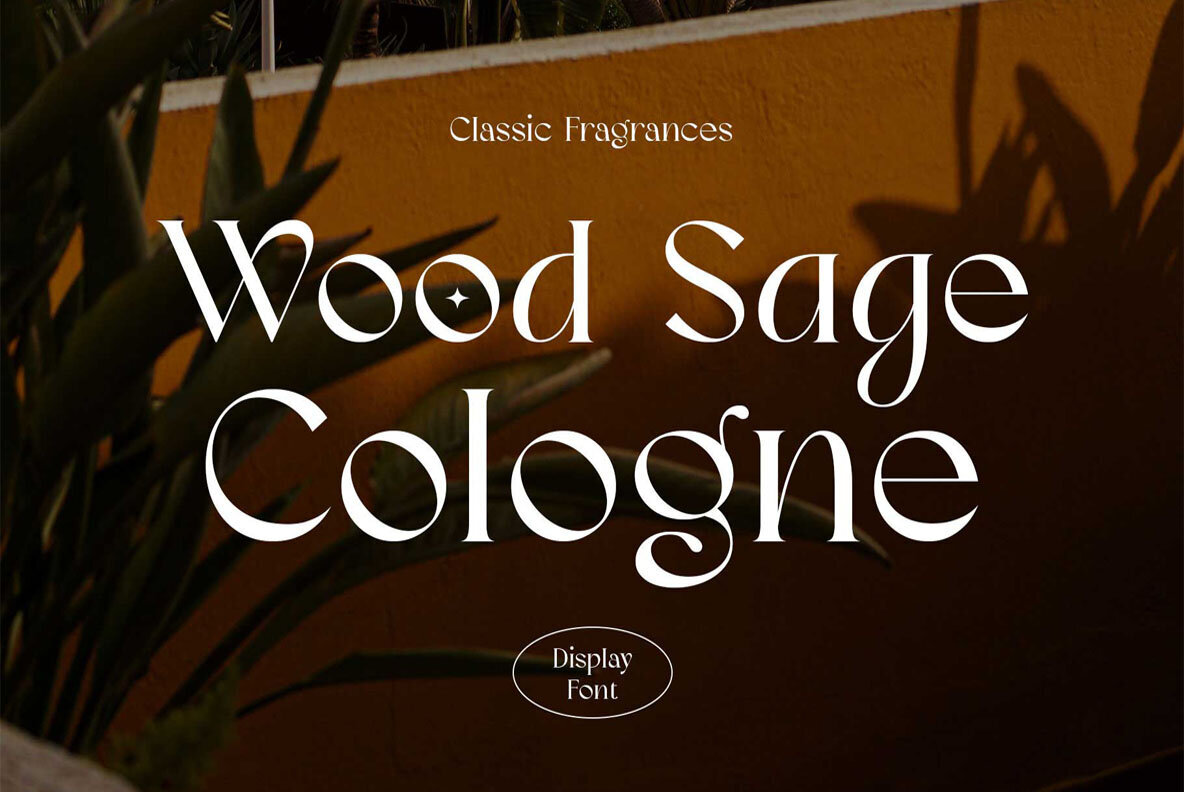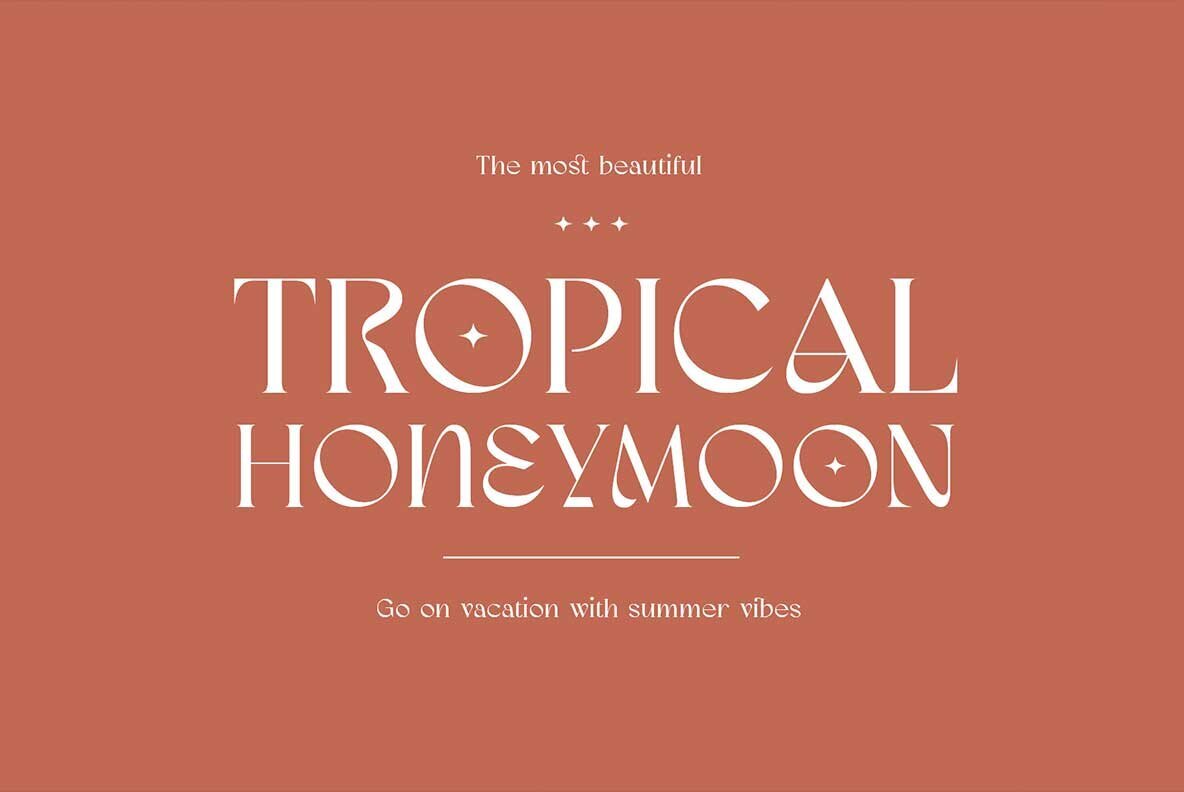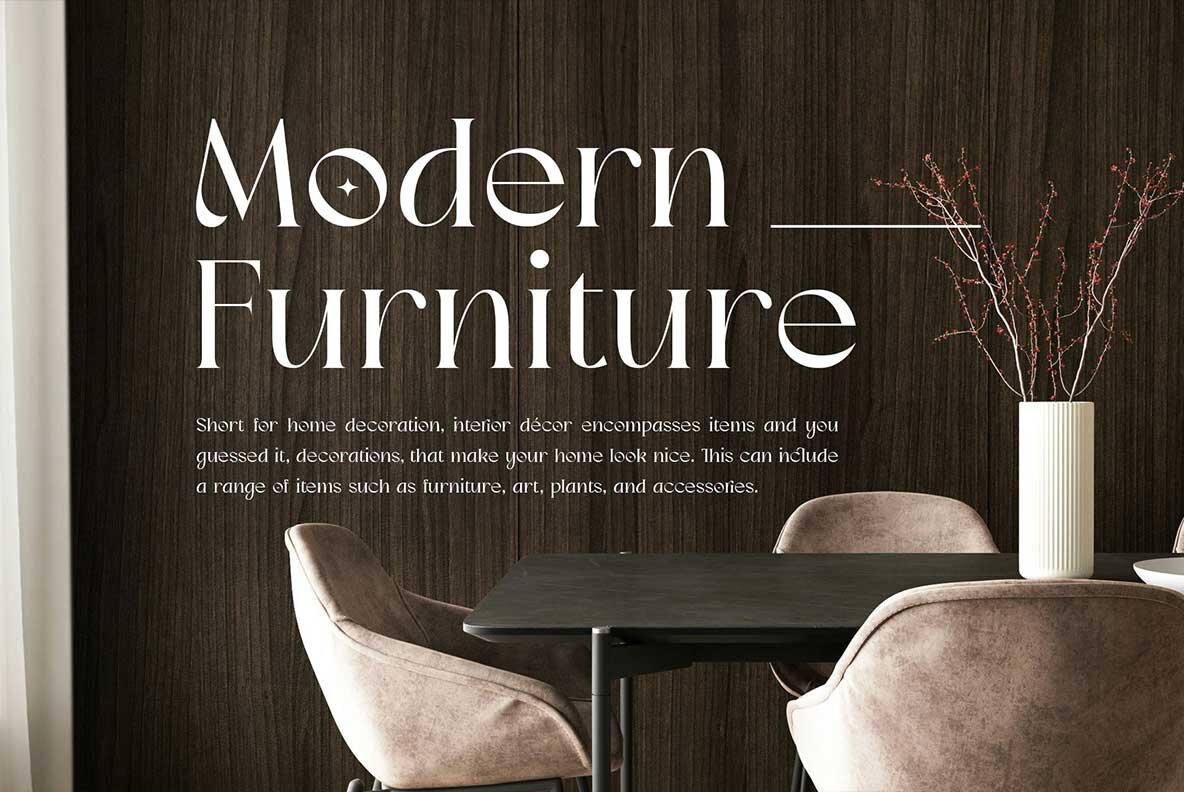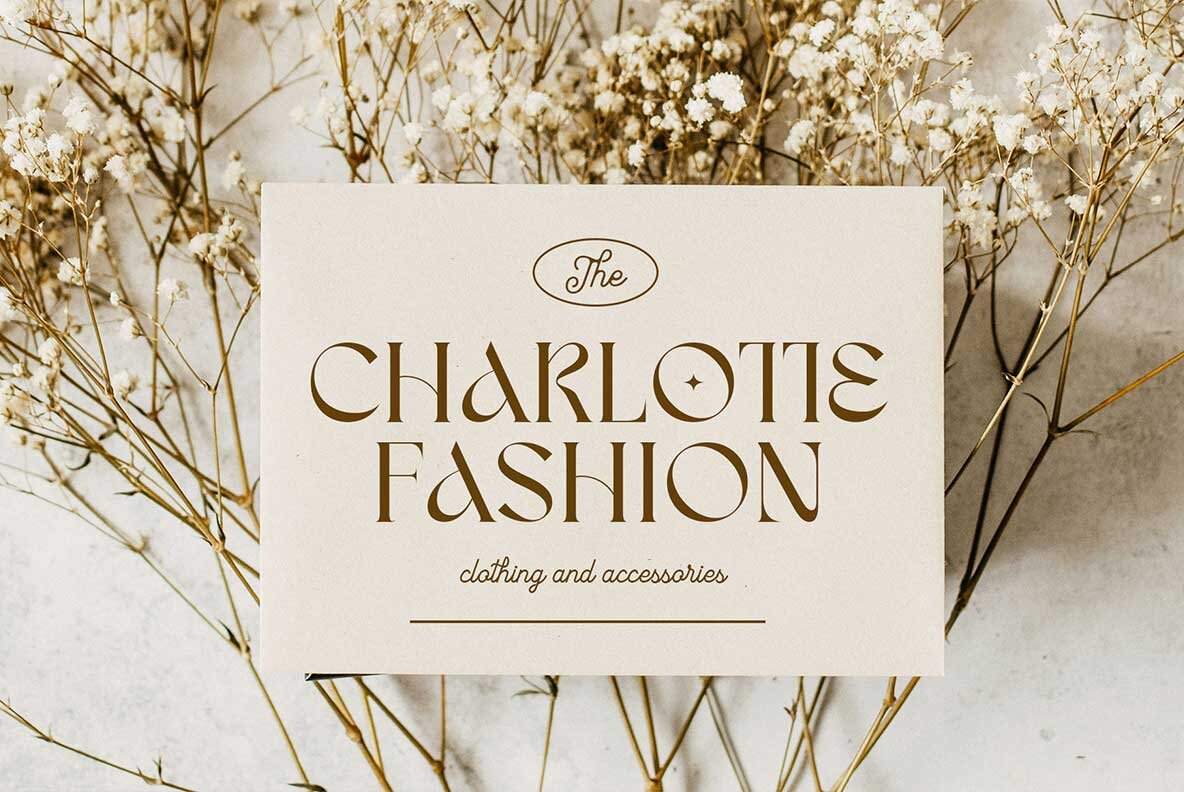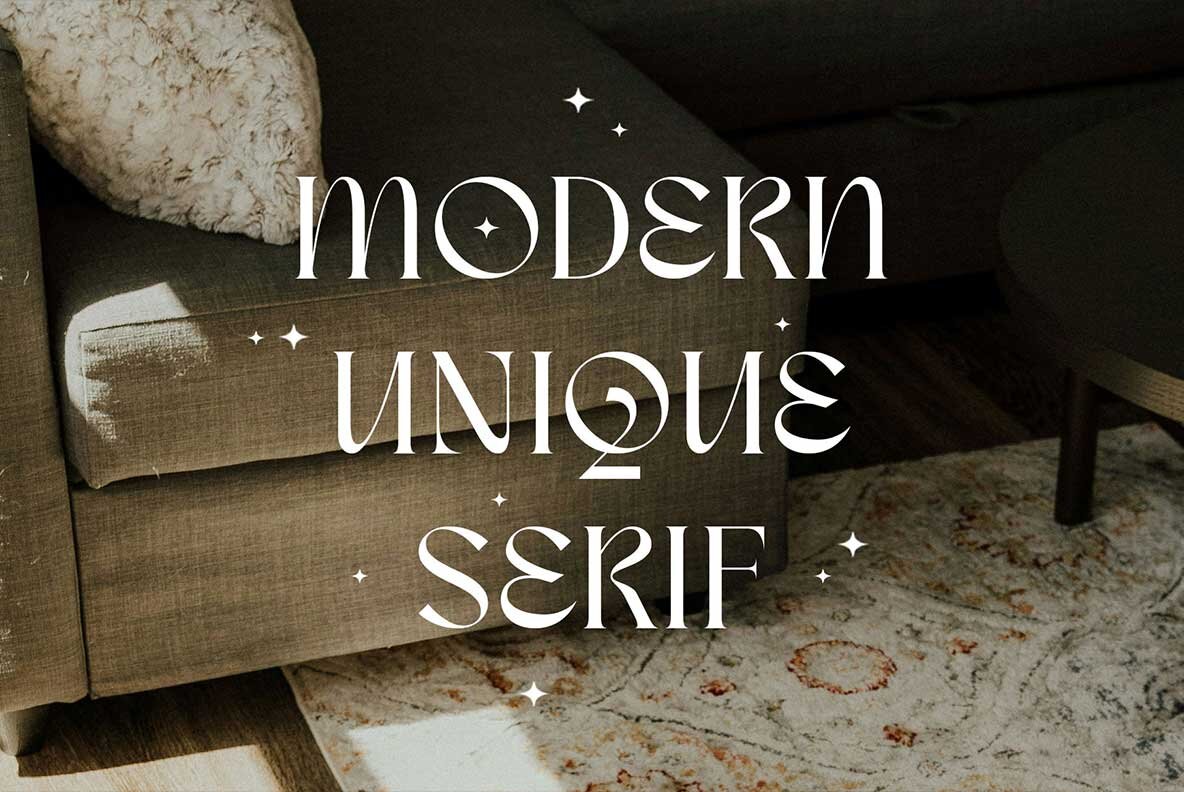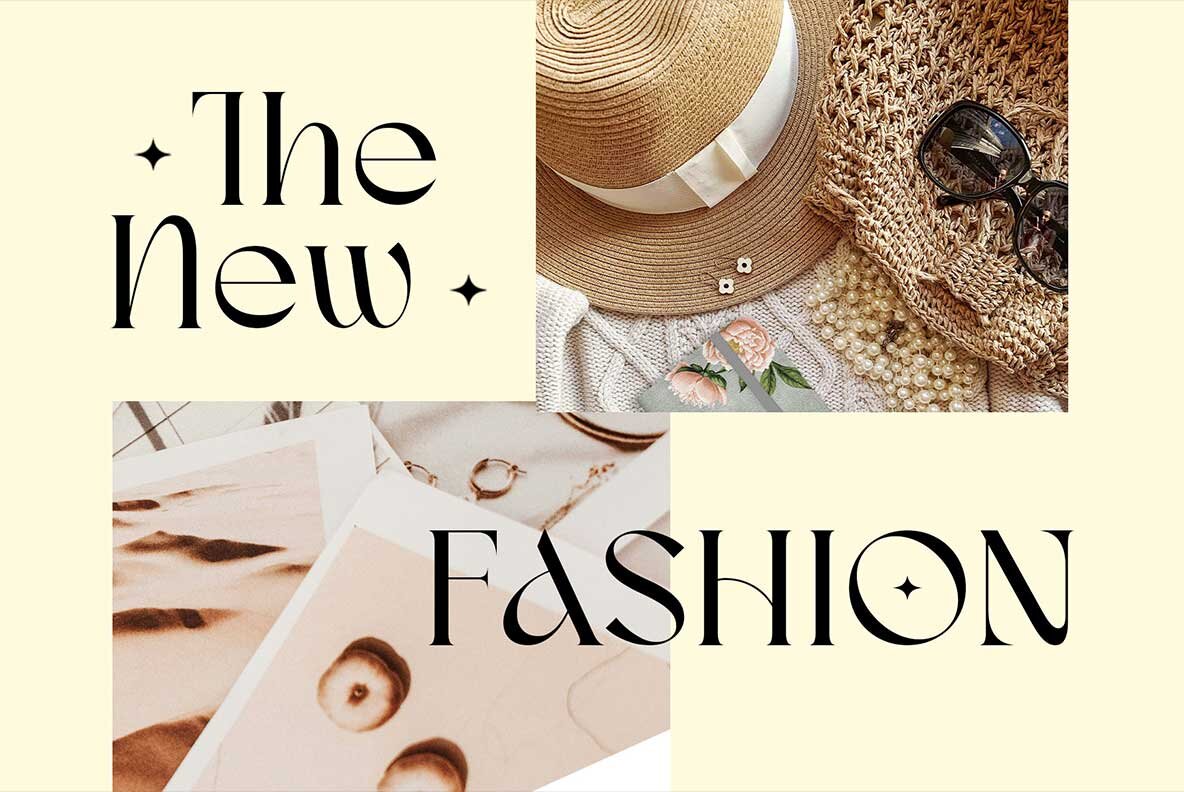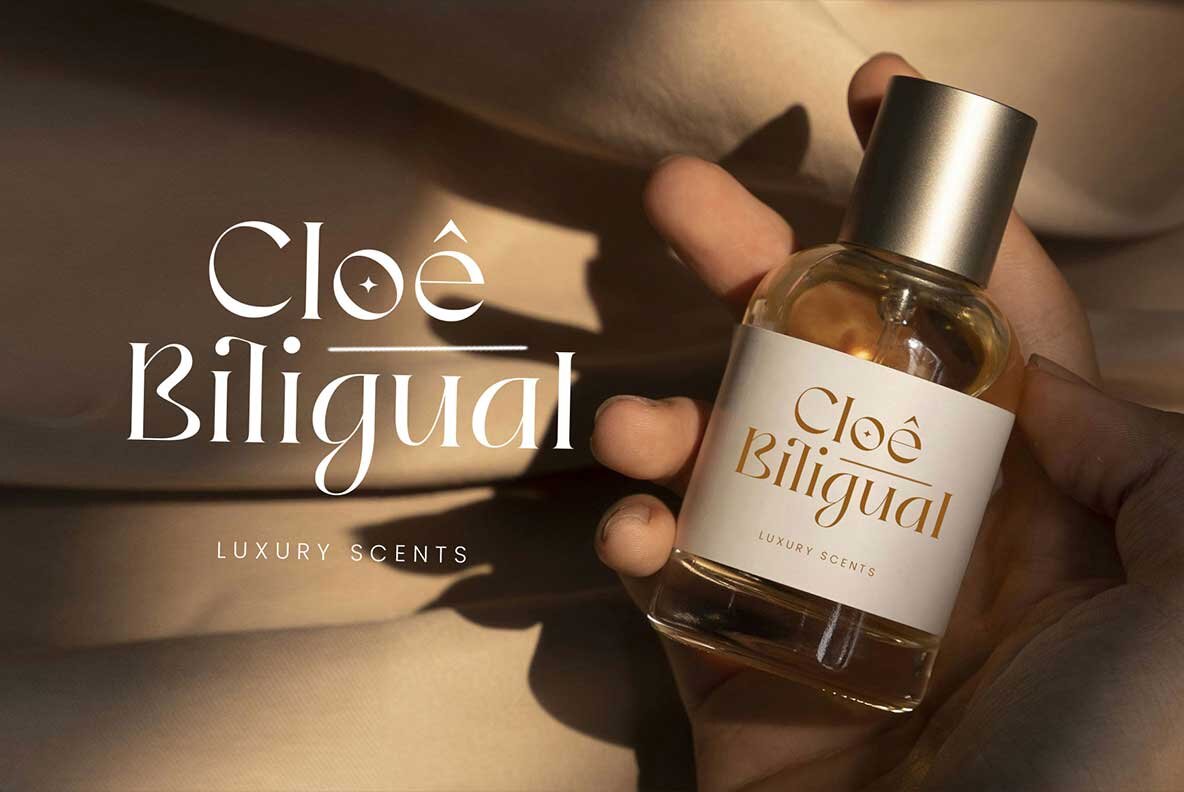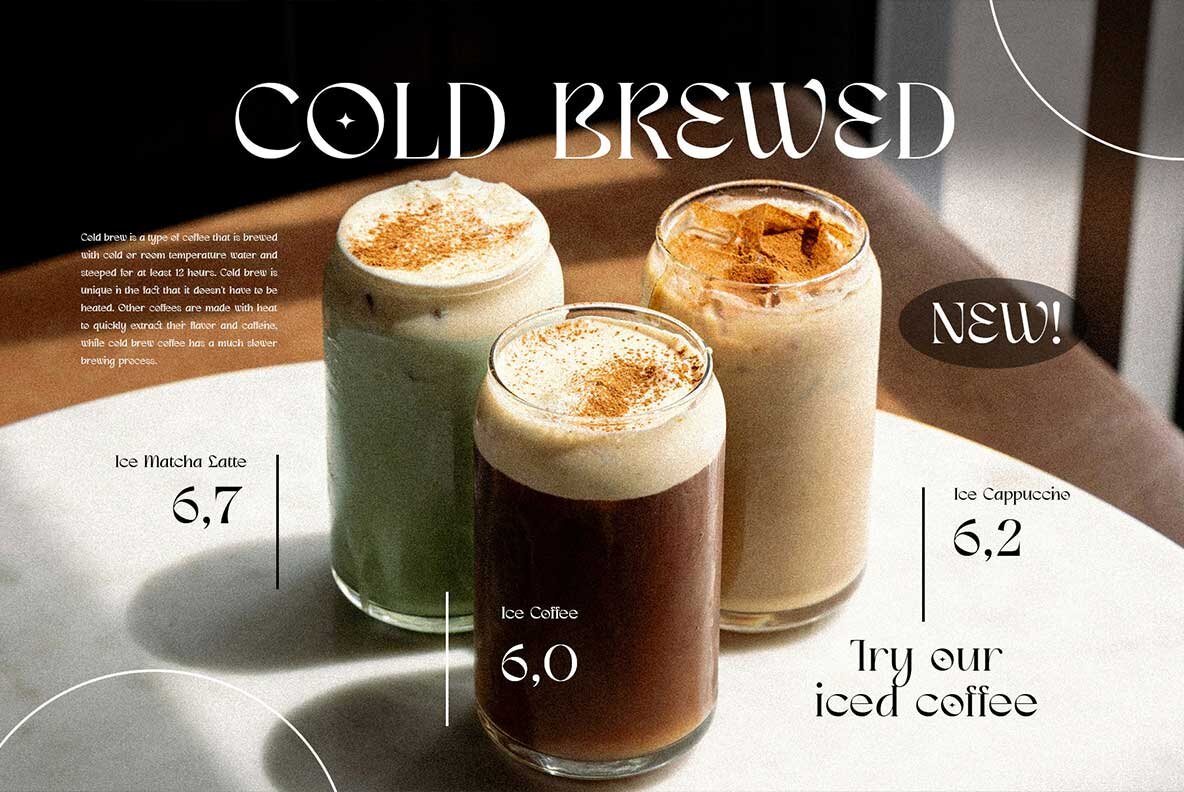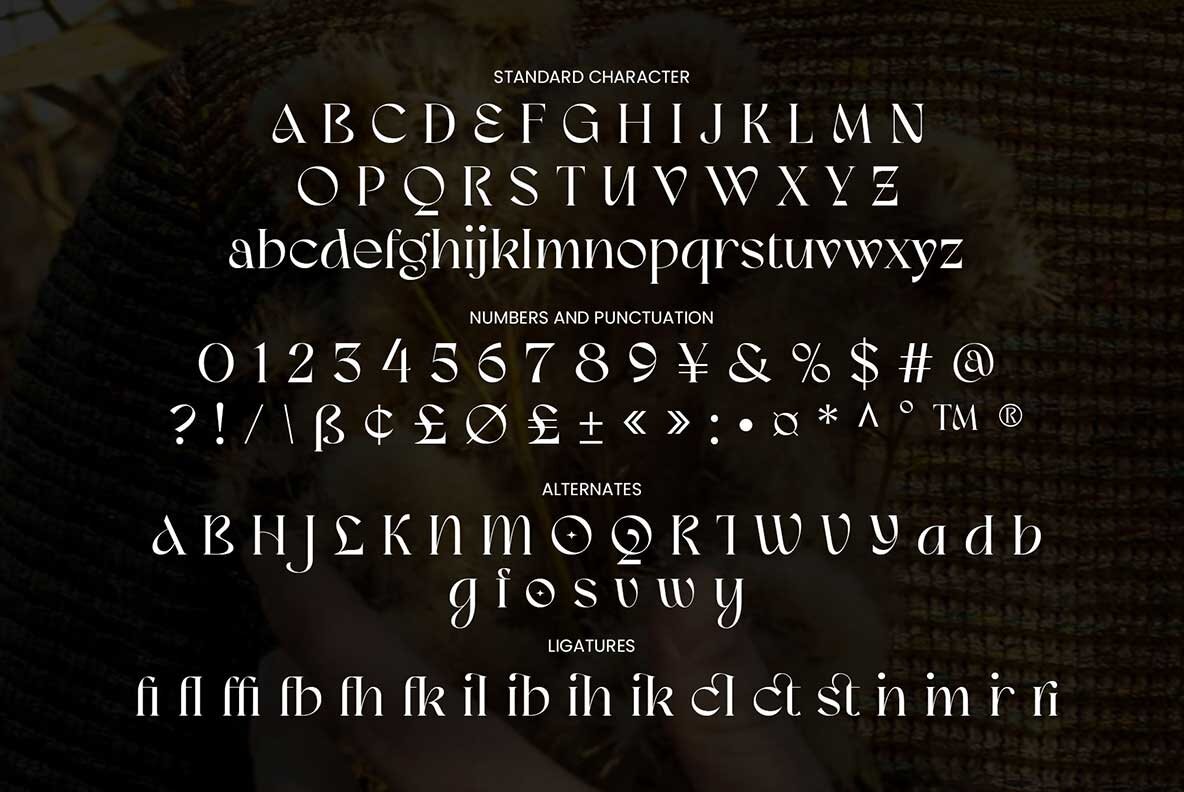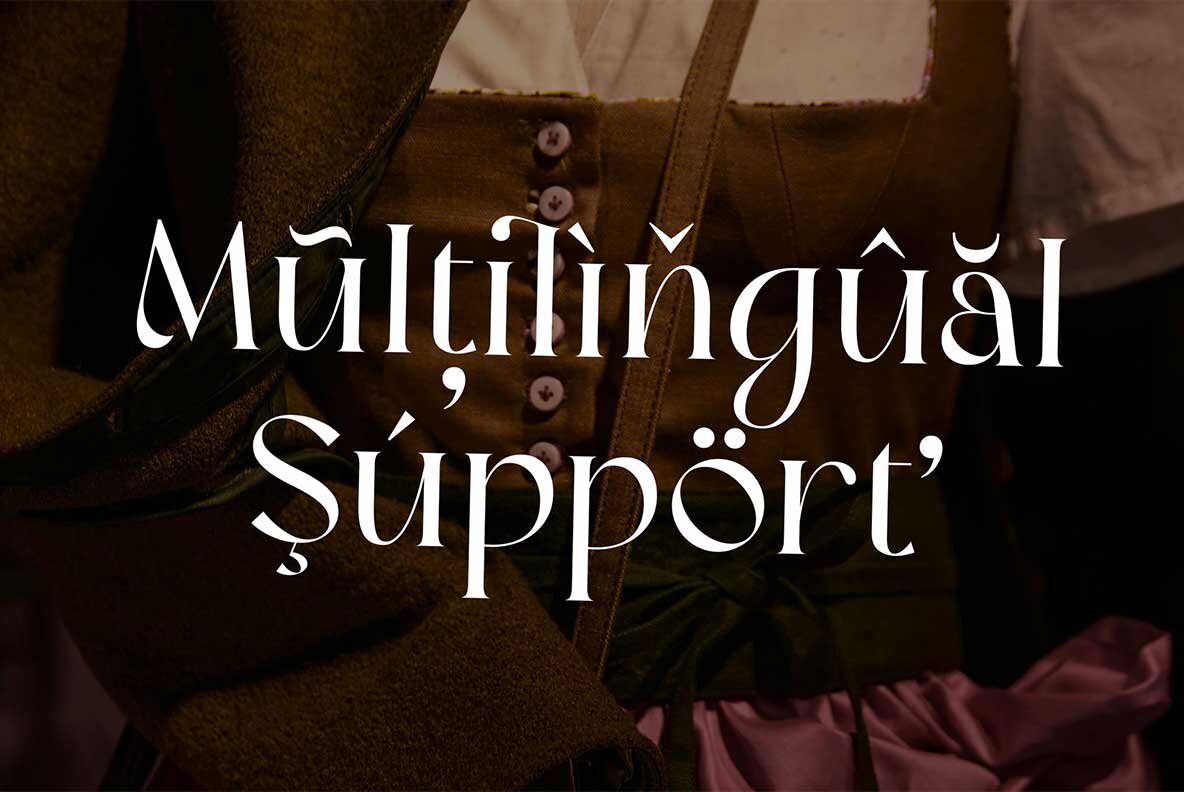
Meisha Nagita Font
Meisha Nagita is a playful yet elegant serif. This font feasts your eyes with charming letter curves and beautiful shapes. Includes uppercase, lowercase, numbers, symbols, punctuation, and multilingual support.
Meisha Nagita is designed in a modern classic style, created to elegance your design projects such as posters, flyers, social media posts, logos, branding, logotypes, editorials, magazines, or anything.
also equipped with beautiful stylistic alternates and lots of elegant ligatures that you can use to make your design even more eye-catching.